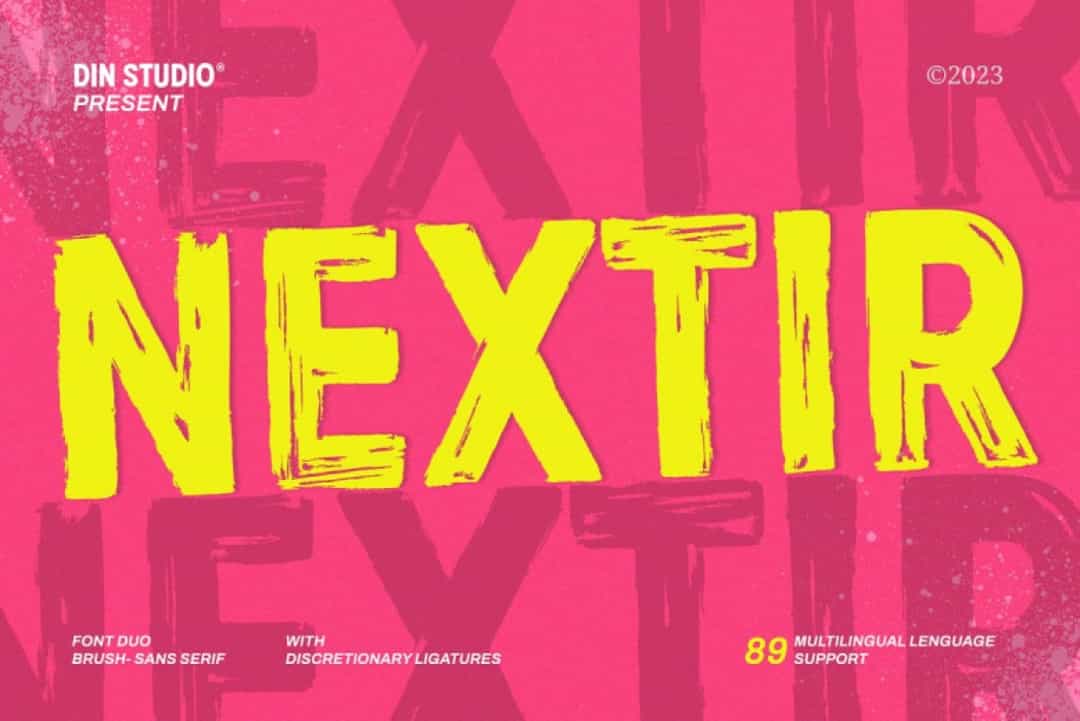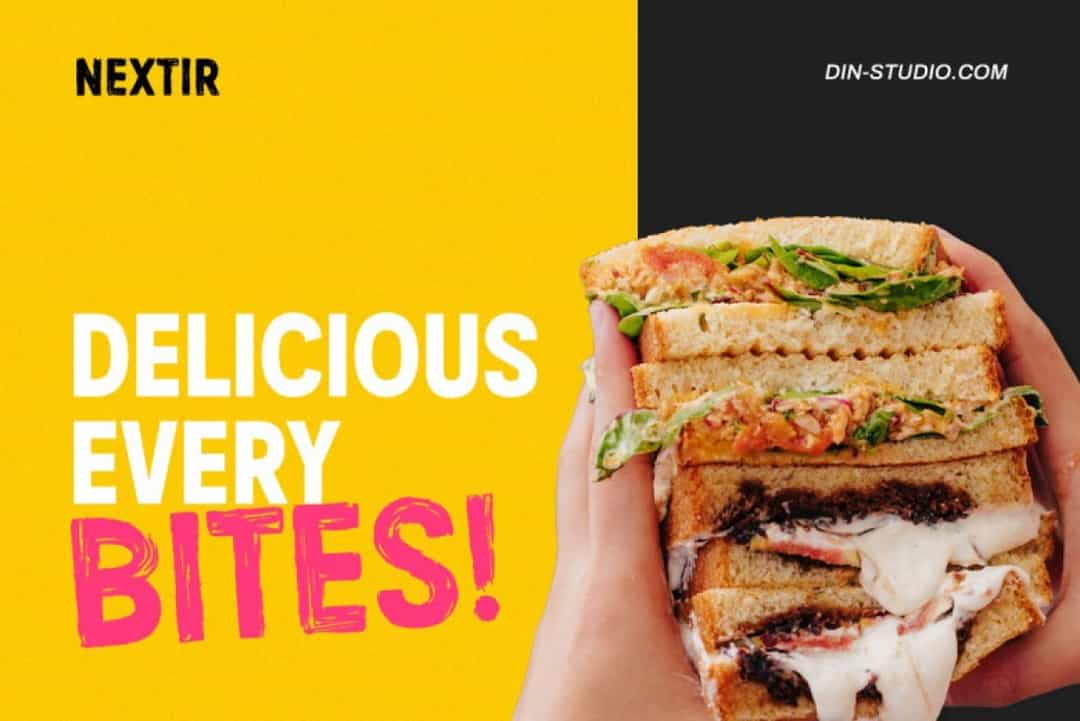
Discover Nextir Font, part of the Brush Serif collection—a versatile and unique font perfect for adding a personal touch to your projects. Download it for free and enjoy crafting designs with style, from invitations to social media posts. This font is available exclusively for personal use, giving you the freedom to create without limits. Unlock your creativity with Nextir Font today!
Nextir is an exceptional brush font that captures readers and advances contemporary typography. Crafted with large letters and heavy weight, its distinct square letter forms represent modernity and strength in equal measures. What sets Nextir apart from other fonts is its attention-grabbing brush detail: its blend of strokes, brushstrokes, sans serif components creates an organic quality in this font that sets it apart from others.